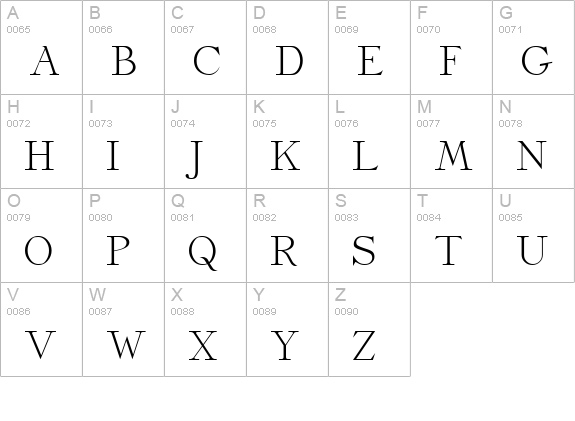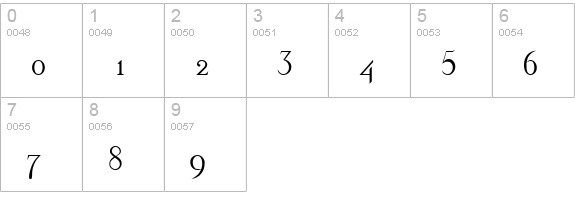
Chapel Font Details
Chapel font is a beautifully crafted typeface that exudes elegance and sophistication. Its sleek lines and graceful curves make it perfect for adding a touch of refinement to any design project. With its timeless appeal and versatility, Chapel font is sure to make a statement and capture the attention of your audience. What's even better is that Chapel font is available for free download at FontsMarket.com. This means you can easily access this stunning font and use it in your creative projects without any cost. Whether you're working on a branding project, website design, or any other creative endeavor, Chapel font is a fantastic choice that will elevate your work to new heights. Download Chapel font today and let your creativity shine!